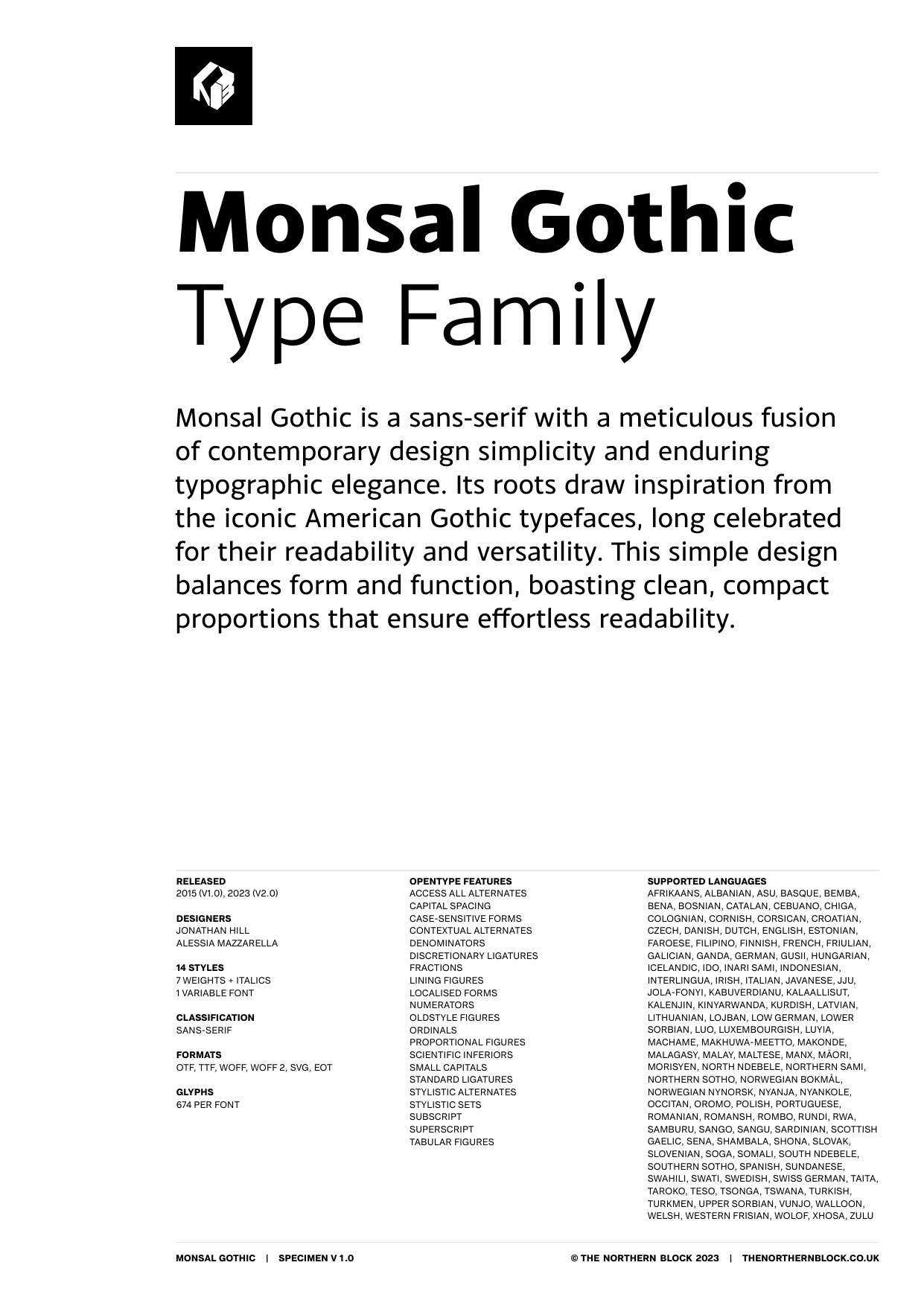
Monsal Gothic Collection
Monsal Gothic
Light Book Regular Medium Bold ExtraBold Heavy
Monsal Gothic Italic
Light Italic Book Italic Regular Italic Medium Italic Bold Italic ExtraBold Italic Heavy Italic
MonsalGothic-Variable
Light Book Regular Medium Bold ExtraBold Heavy Light Italic Book Italic Italic Medium Italic Bold Italic ExtraBold Italic Heavy Italic
Monsal Gothic is a sans-serif with a meticulous fusion of contemporary design simplicity and enduring typographic elegance. Its roots draw inspiration from the iconic American Gothic typefaces, long celebrated for their readability and versatility. This simple design balances form and function, boasting clean, compact proportions that ensure effortless readability. Whether for print or screens, Monsal Gothic's versatility shines, making it an ideal choice for text-centric projects.
Monsal Gothic offers more than legibility with each character – it infuses your text with an expressive touch, captivating readers with its unique personality. This typeface adapts seamlessly to various publishing mediums, from traditional print publications like books and magazines to modern digital interfaces, enhancing your content's visual appeal and clarity.
Details include seven weights and italics, over 600 characters with alternative lowercase g. Open-type features include six variations of numerals, case-sensitive forms, small caps, ligatures, and language support covering Western, South and Central Europe.